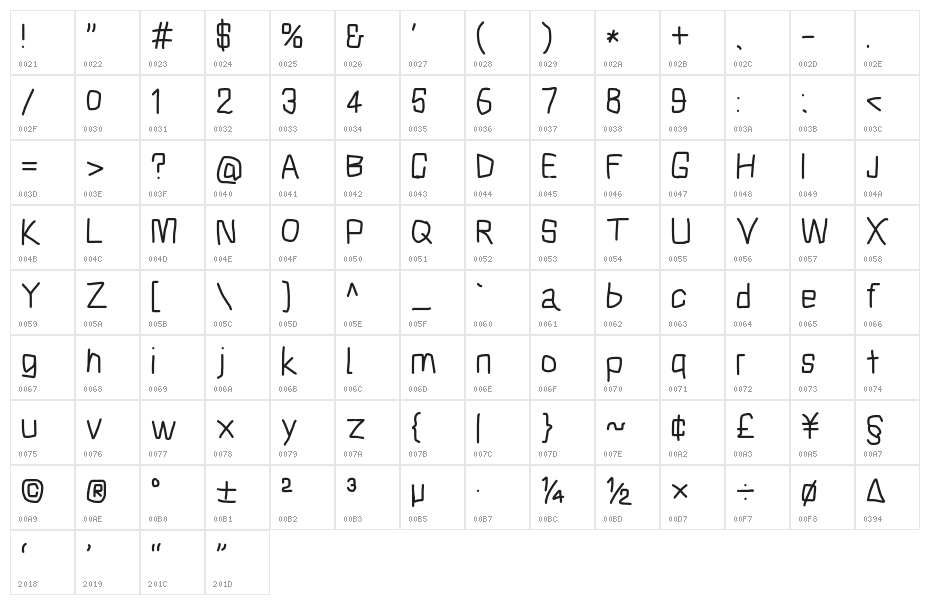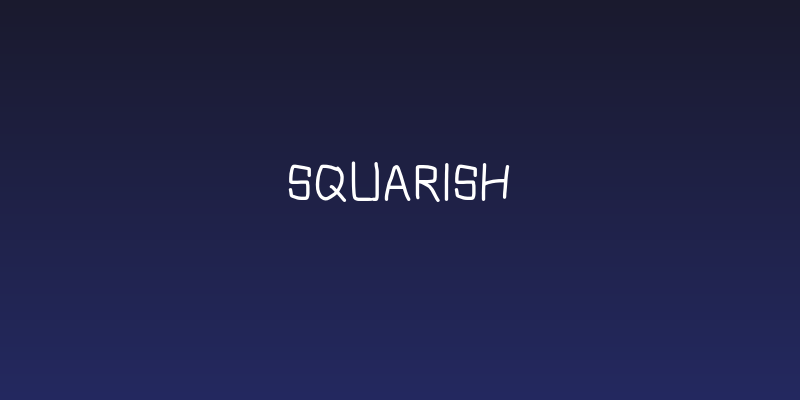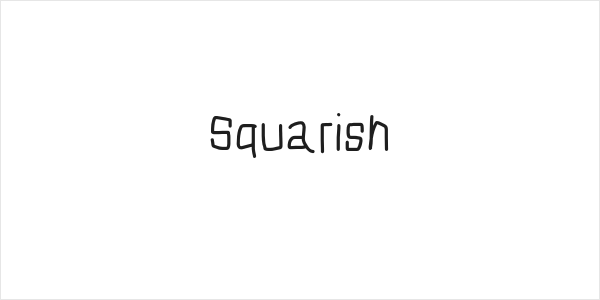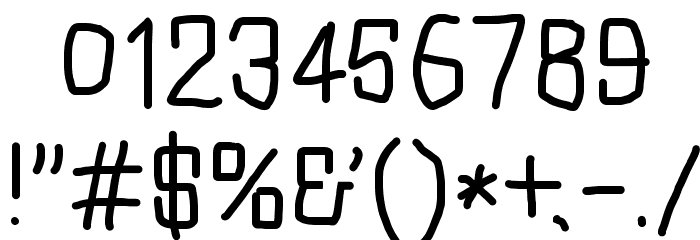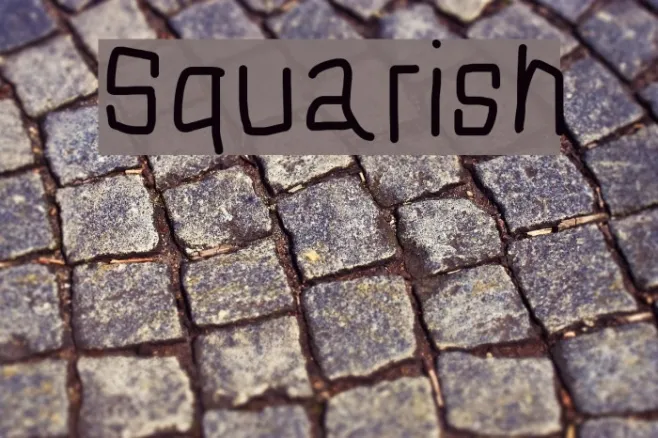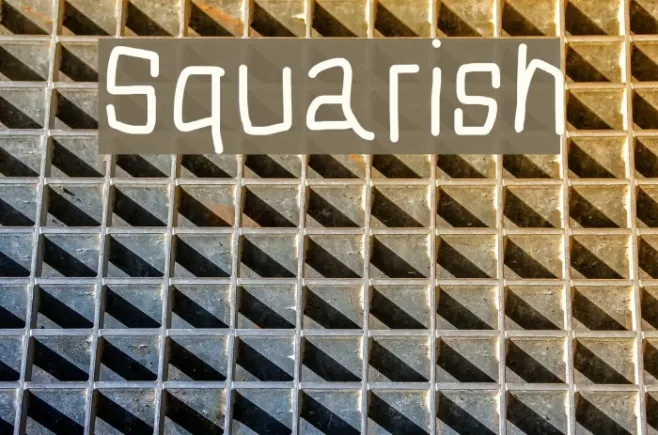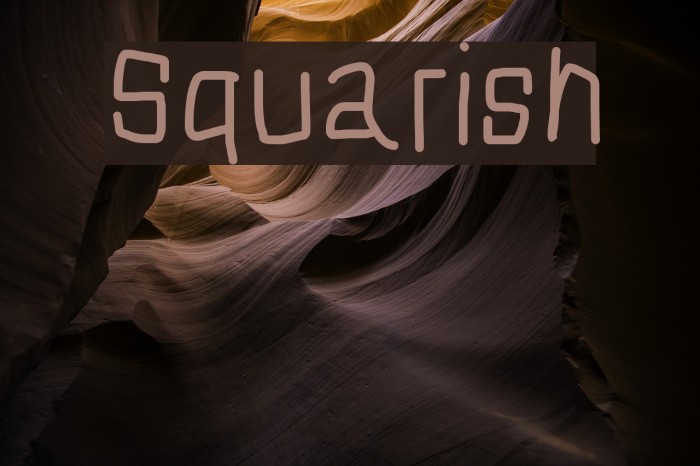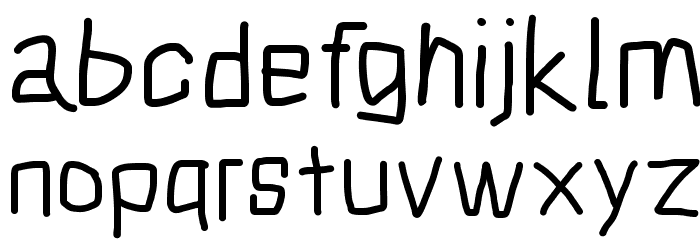
Squarish Font
Squarish Description
This font features a unique, hand-drawn style with a squarish, geometric appearance. The characters are bold and slightly irregular, giving them a playful and informal look. The uppercase letters have a consistent height and width, while the lowercase letters maintain a similar style with a slightly more relaxed form. Numbers and special characters follow the same design principles, ensuring uniformity across the font. The strokes are consistent in thickness, providing a medium contrast that enhances readability. Overall, this font combines a modern aesthetic with a touch of whimsy, making it suitable for various creative applications.
| Overall Style | Playful, Modern |
| Proposed Projects | Ideal for children's books, playful branding, casual invitations, and creative posters. |